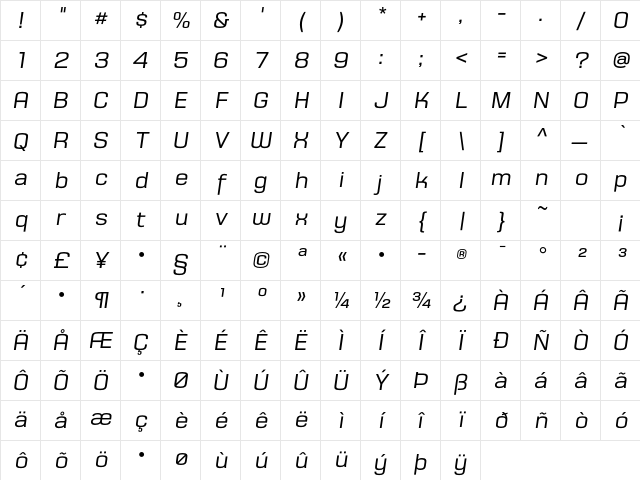
HouseGothicHG23Text Italic
Designer: Allen Mercer/Tal Leming
Design Context for HouseGothicHG23Text
HouseGothicHG23Text takes a clean, functional approach - its unadorned letterforms prioritise legibility and work reliably across screen and print environments. The slanted form adds forward momentum and visual energy.
Font Pairing: Works well alongside a characterful serif or display font that can carry the expressive load while HouseGothicHG23Text handles the functional copy.
Pro Tip: Use HouseGothicHG23Text for UI labels, navigation, and short-form body copy where clean legibility is the priority.